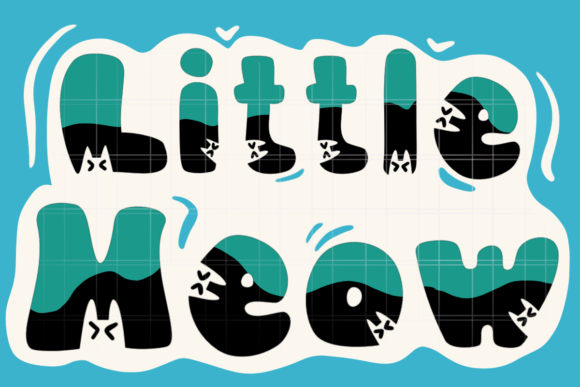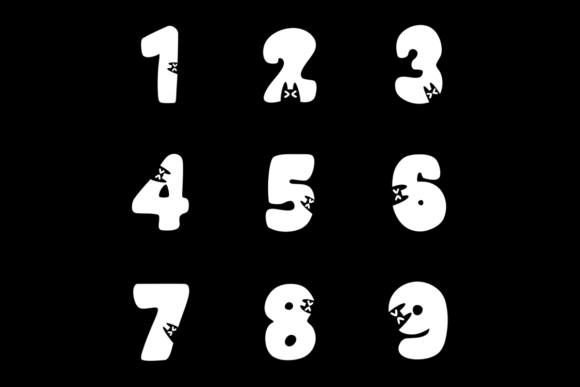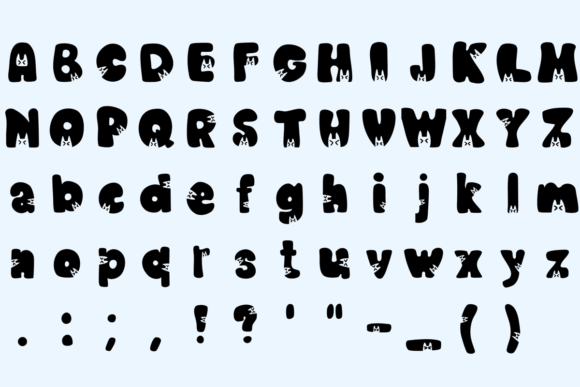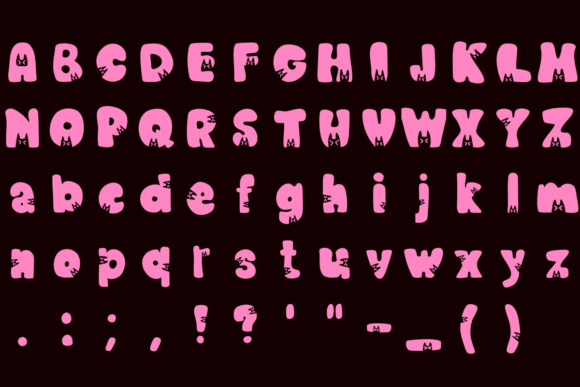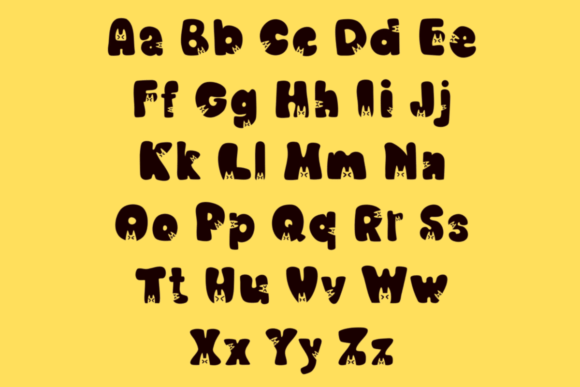
Introduction to Little Meow Font Font
Fonts play a crucial role in design, and the Little Meow Font font is a typeface that brings both character and versatility to any project. Whether you’re working on a branding project, a website, or a print design, the Little Meow Font font offers a unique style that can elevate your work.
βLittle Meow,β the delightful Decorative font that brings adorable charm to your designs.
Perfect for cat lovers and creatives seeking playfulness Available in .
Key Features of Little Meow Font Font
Why Choose Little Meow Font Font?
The Little Meow Font font is more than just a typeface β it’s a design tool that helps you communicate your message with style and clarity. Its unique character set and versatile design make it suitable for a wide range of applications, from elegant invitations to bold headlines.
With its carefully crafted letterforms and balanced proportions, the Little Meow Font font ensures readability and visual appeal across all mediums.
What makes Little Meow Font font special?
The Little Meow Font font stands out with its unique design, exceptional readability, and versatility across various design applications.